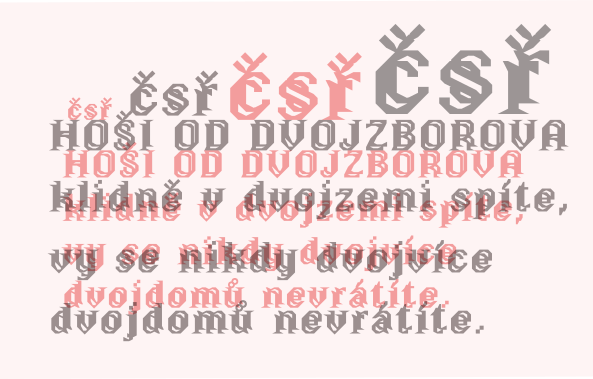
I always look for your fonts, I love the many variations you offer, they allow to create the most varied fonts.  Very clever and attractive. This font shows your interest in layering and your understanding of how to succeed. 10/10